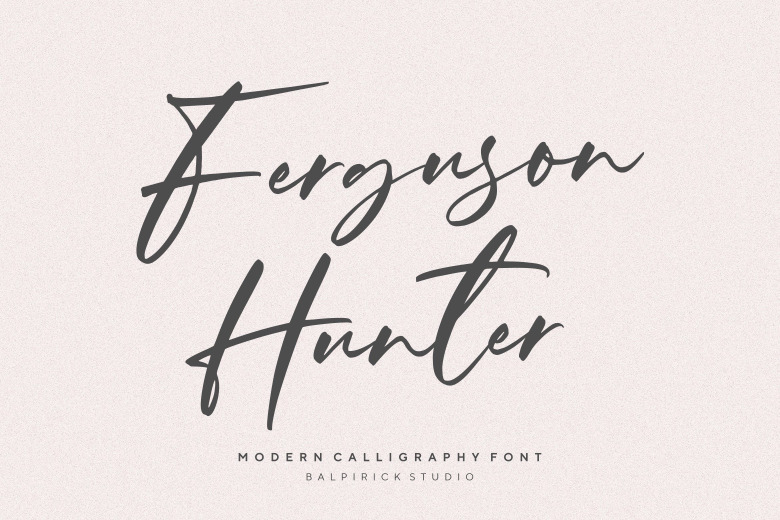
Ferguson Hunter Font
Ferguson Hunter is a lovely script font featuring charming, playful characters that seem to dance along the baseline. Whatever the topic, this font will be a wonderful asset to your font library, as it has the potential to enhance any creation.